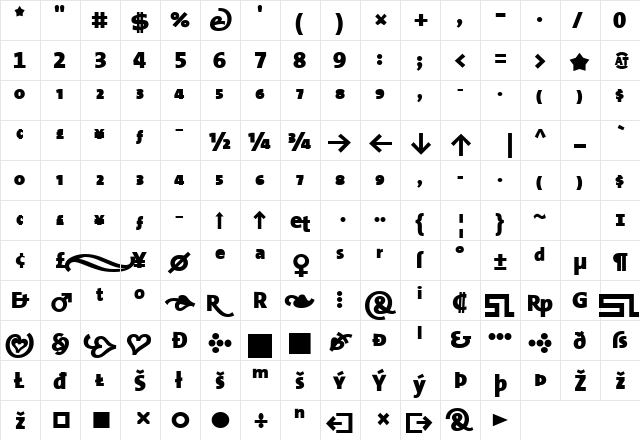
TheSansBlack-Expert Regular
Design Context for TheSansBlack-Expert Typeface
TheSansBlack-Expert offers clean, dependable letterforms without strong stylistic allegiance, making it a practical choice for designers who need flexibility.
Pro Tip: Use TheSansBlack-Expert in both headline and body roles to test its range before committing to a single application.